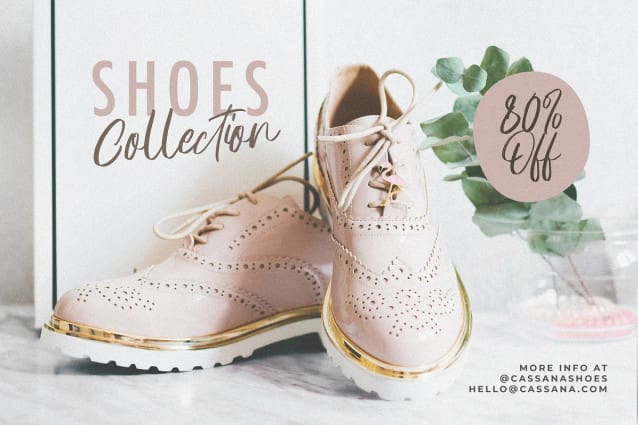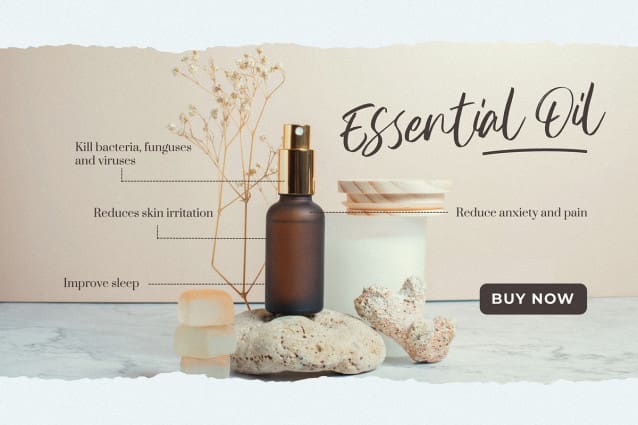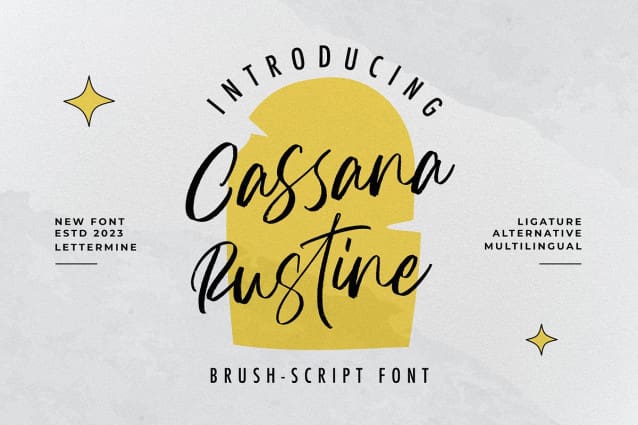
Cassana Rustine Font
Cassana Rustine Font – Elegant Script, a captivating and versatile Elegant Script font designed to add a touch of elegance and modernity to any project. Whether you’re designing for the fashion industry, food industry, or various celebratory occasions like weddings, birthdays, or engagements, this font is your perfect companion. With its stylish and contemporary Allcaps Display Serif style, Cassana Rustine – Elegant Script effortlessly captures attention and elevates your designs to new heights.
Key Features:
Alternate Characters: Cassana Rustine – Elegant Script comes with a variety of alternate characters that allow you to create endless variations and combinations. Easily add a creative touch to your designs!
Ligatures: Presenting beautiful ligatures, CassanaRustin – Elegant Script provides the possibility to combine characters and create a harmonious and flowing appearance.
Multilingual Support: The multilingual support enables you to reach a global audience with ease. CassanaRustin – Elegant Script includes the necessary characters for major languages worldwide.
Uppercase and Lowercase: With carefully crafted uppercase and lowercase letterforms, CassanaRustin – Elegant Script offers optimal flexibility in your designs.
Symbols and Numerals: In addition to letter characters, Cassana Rustin – Elegant Script also provides elegant symbols and numerals, offering convenience in creating cohesive and comprehensive designs.